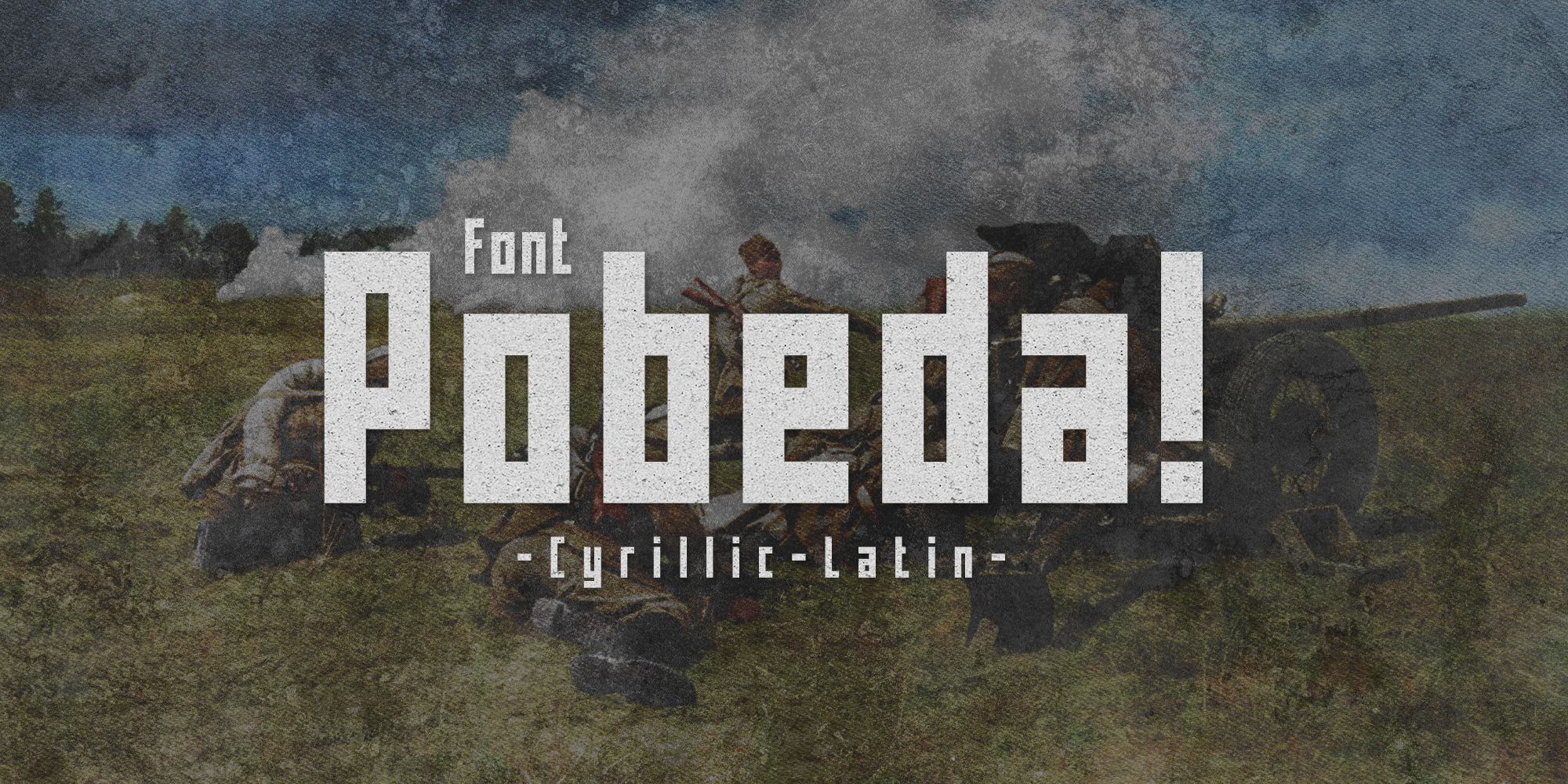
TD Pobeda Font is perfect for victorious sports team branding, triumphant achievement celebrations, winning competition graphics, successful business milestone materials, championship tournament promotions, victory parade signage, accomplished award ceremony presentations, conquering military memorial displays, successful campaign marketing, and triumphant historical commemoration projects. Its powerful victory character makes it ideal for projects requiring triumphant spirit and achievement celebration authenticity.
What makes TD Pobeda Font exciting is its commanding embodiment of victory achievement and triumphant success with bold letterforms and winning characteristics that capture the essence of conquest excellence and achievement mastery. The font features strong proportions, victory-inspired details, and triumphant character construction that create authentic winning atmosphere and achievement appeal. Its powerful personality brings strength and success to contemporary designs while maintaining the clarity essential for victory communications and achievement presentations. The carefully crafted triumphant elements ensure visual impact while preserving the distinctive character that embodies the essence of victory celebration and achievement excellence.
TD Pobeda Font comes in multiple victorious variations including Light, Regular, Medium, Bold, and Champion styles. Each family member maintains the distinctive victory character while offering comprehensive flexibility for achievement typography and triumphant brand system development. The complete font family includes alternate characters, victory symbols, and triumphant decorative elements that provide extensive tools for creating immersive winning design experiences and authentic achievement brand storytelling.
Whether you're developing victory brands, achievement organizations, or successful milestone projects, TD Pobeda Font Free Download provides the triumphant power needed to communicate with winners and achievement-focused audiences who appreciate victory spirit and successful excellence. The font's commanding appeal resonates with champions, successful professionals, and achievement seekers seeking authentic victory credibility and triumphant sophistication. Its comprehensive character set includes victory symbols and achievement marks, making it perfect for creating complete winning brand systems and memorable triumph storytelling across diverse success applications and victory-focused design projects that celebrate achievement mastery and triumphant excellence.